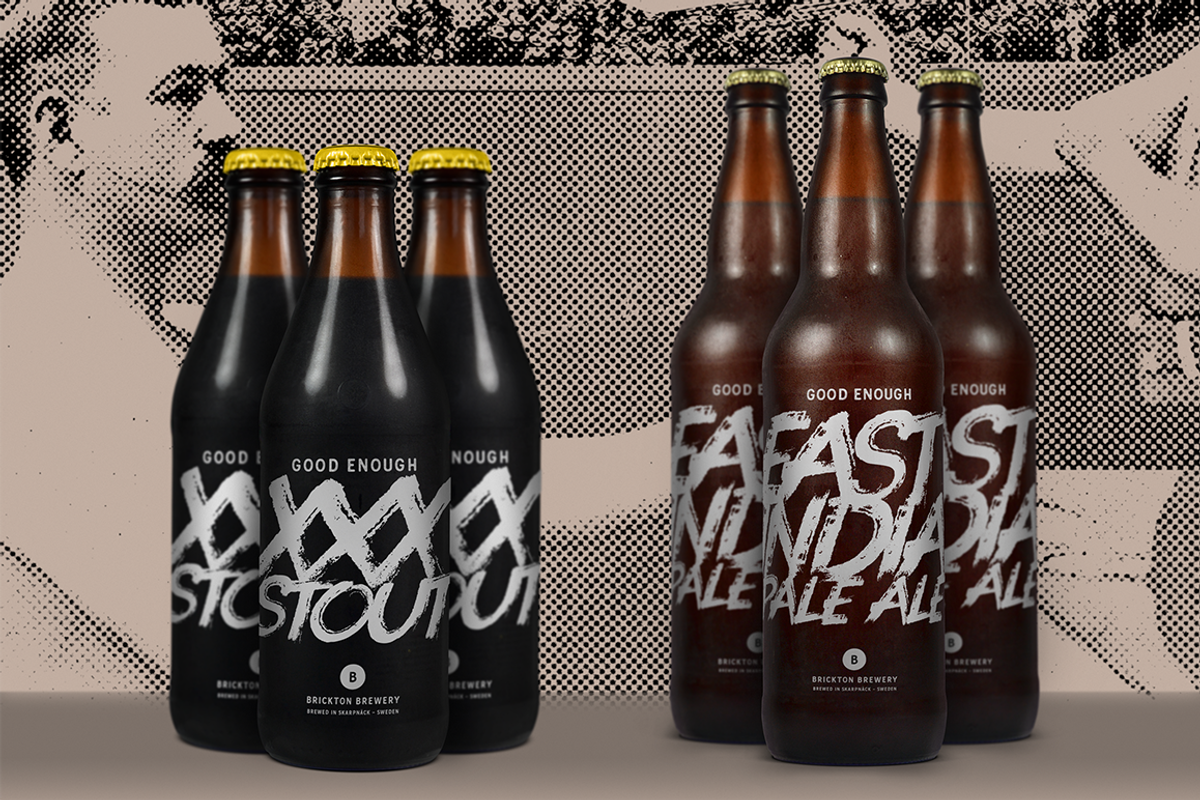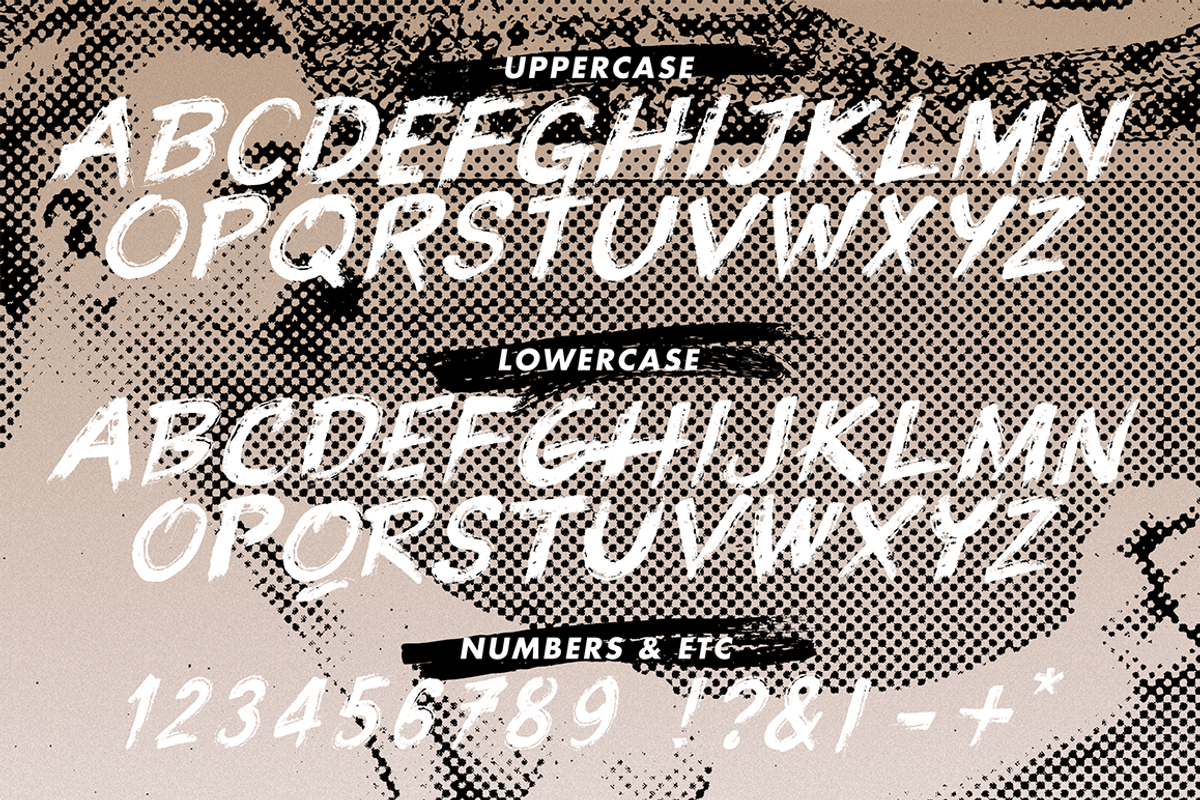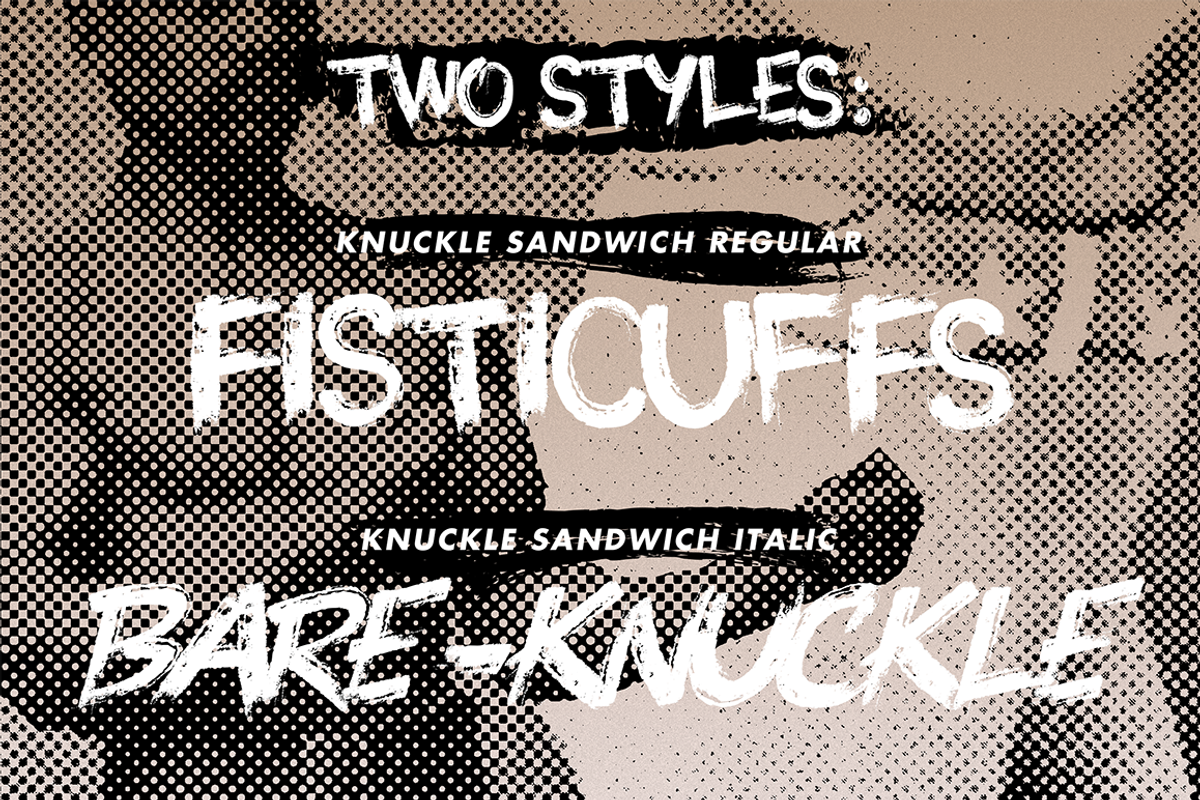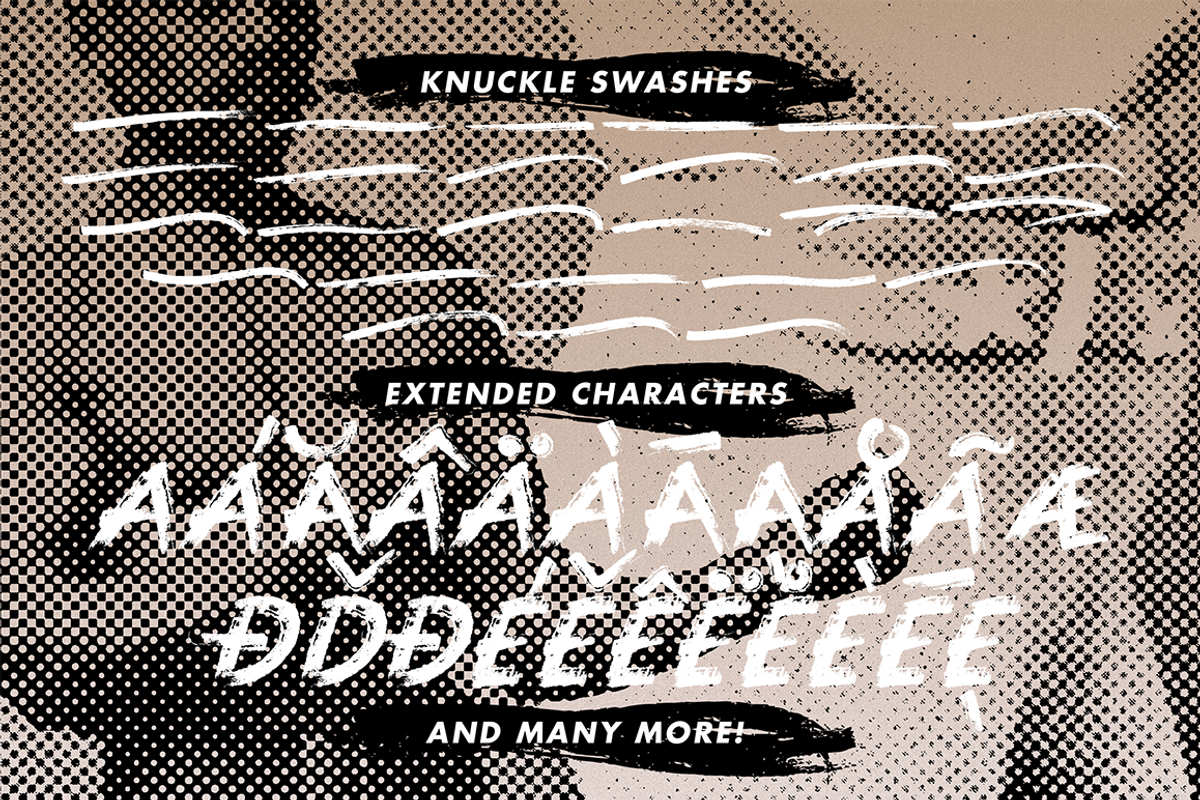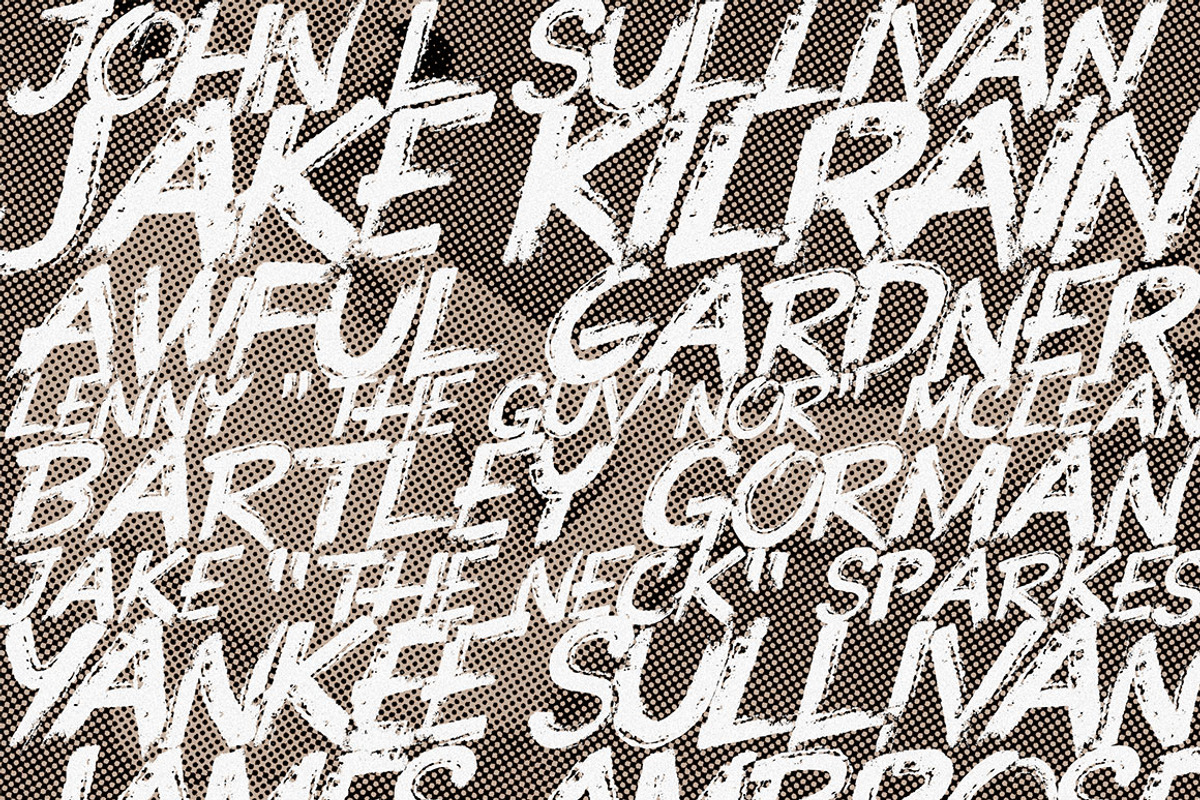
Knuckle Sandwich - A brush font
Knuckle Sandwich - A brush font by Great Scott! is a font selected for branding, posters, packaging, typography.
- ALSO INCLUDED: Knuckle Sandwich - Swashes.
- Uses uppercase and lowercase for stylistic alternates, for ease and quickness.
- Knuckle Sandwich supports basic latin, western European, central European and south eastern European characters.
Why Knuckle Sandwich - A brush font is worth a look
Knuckle Sandwich - A brush font by Great Scott! fits naturally into Branding, posters, packaging, typography.